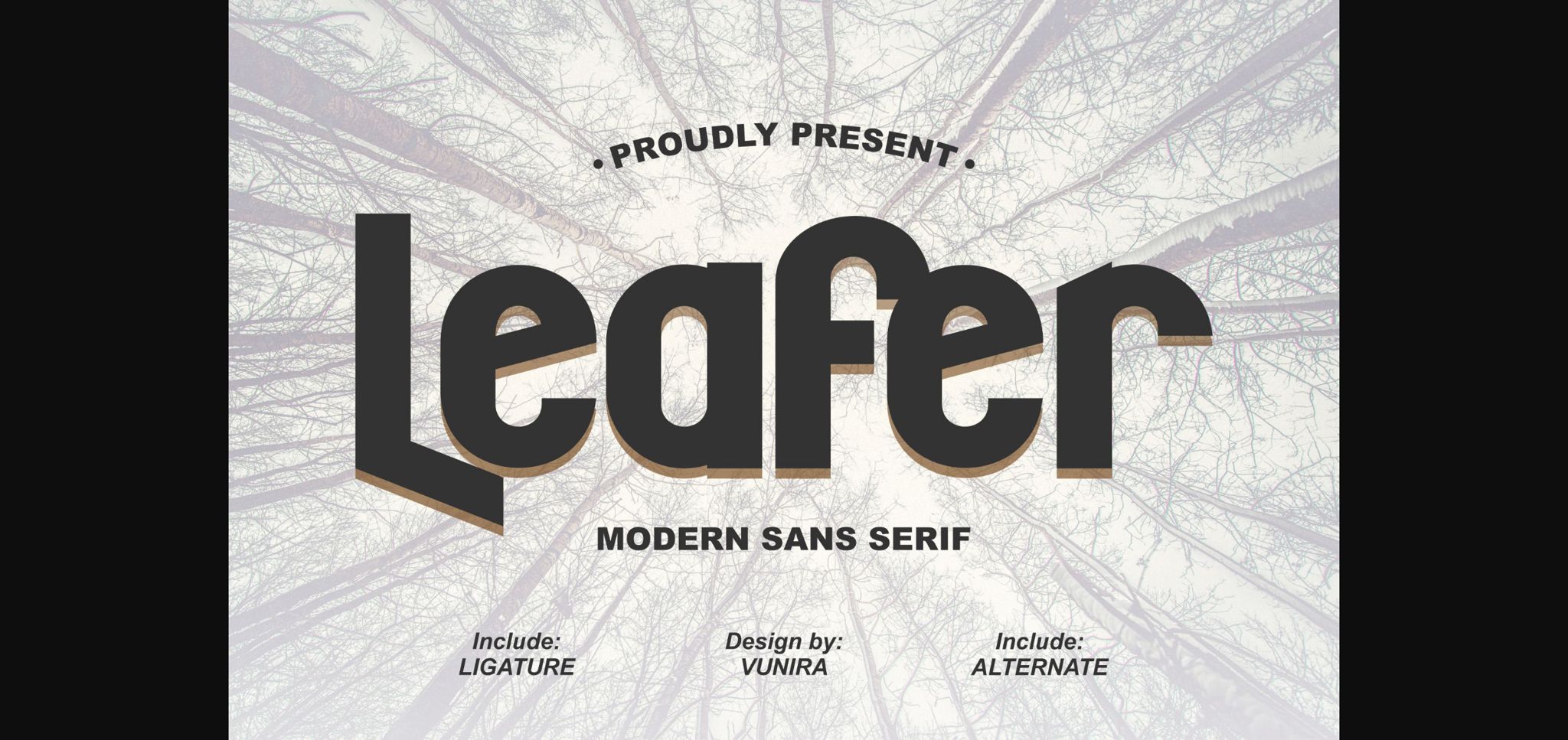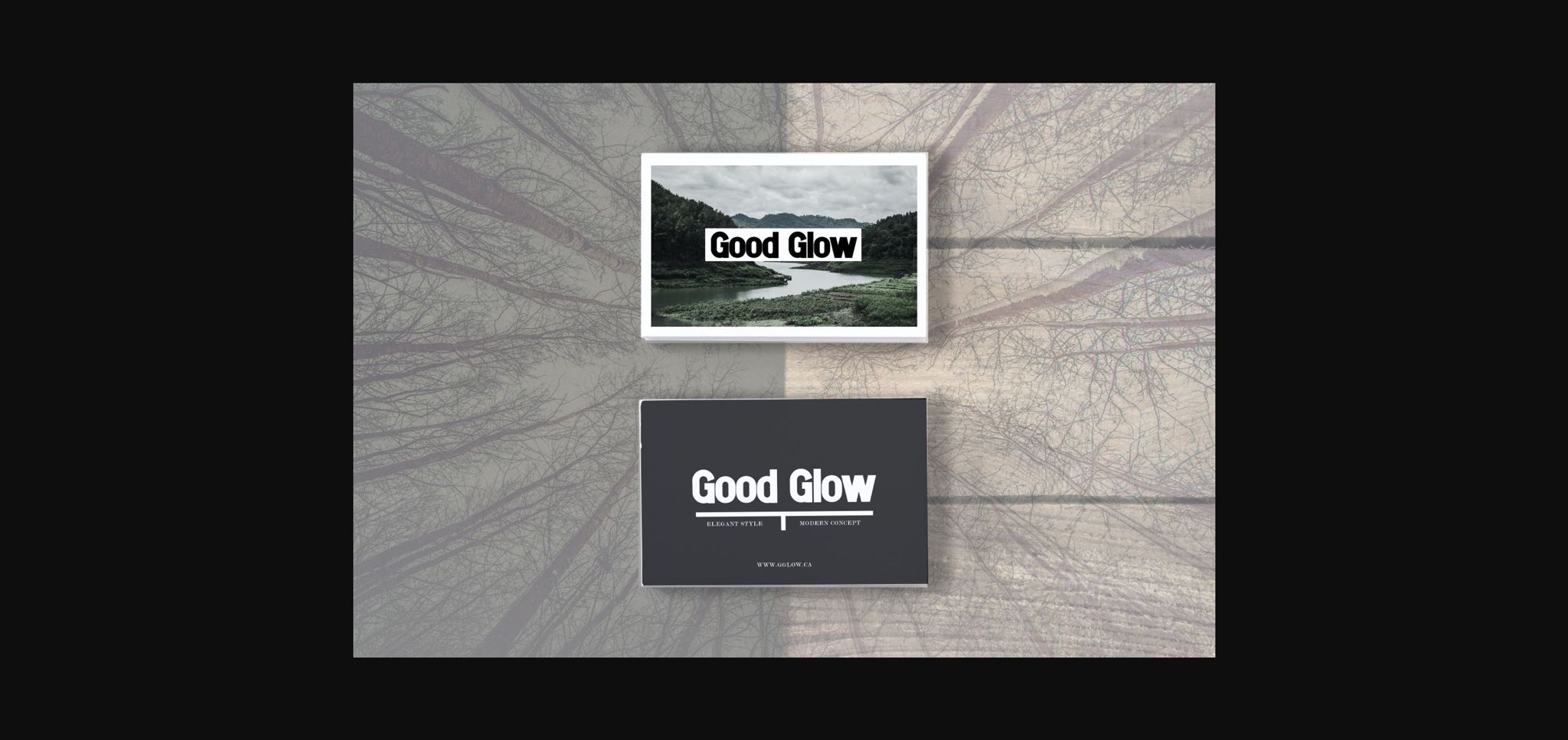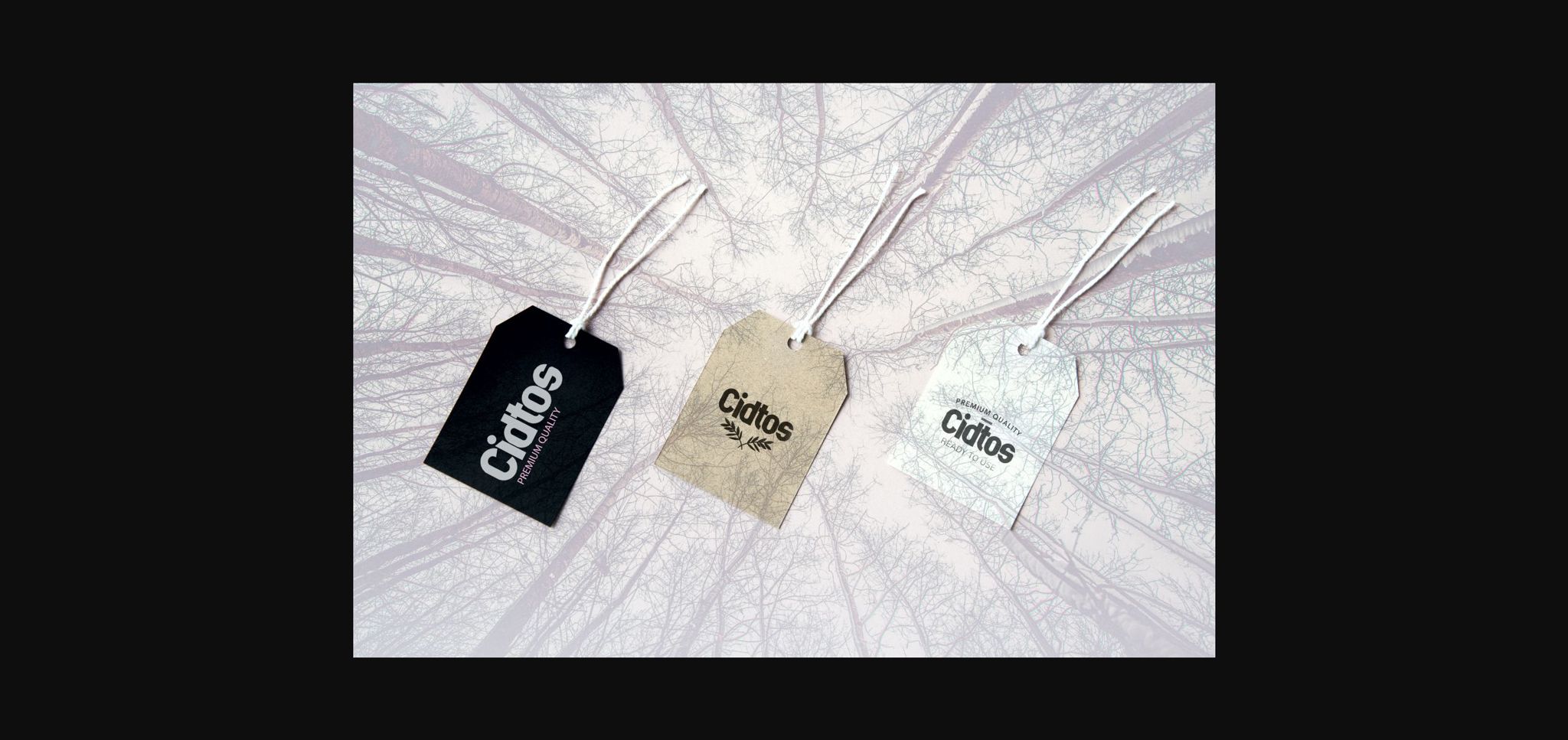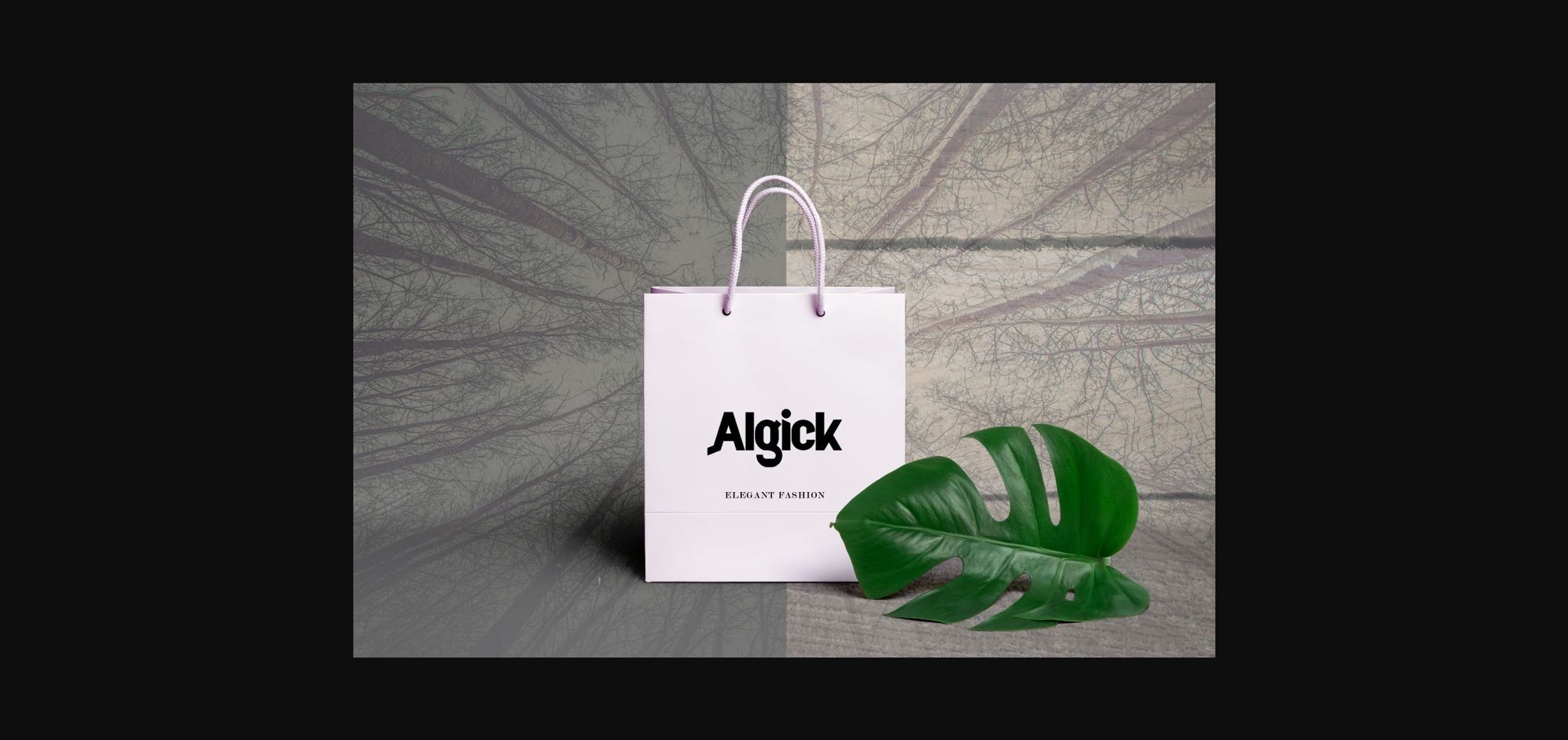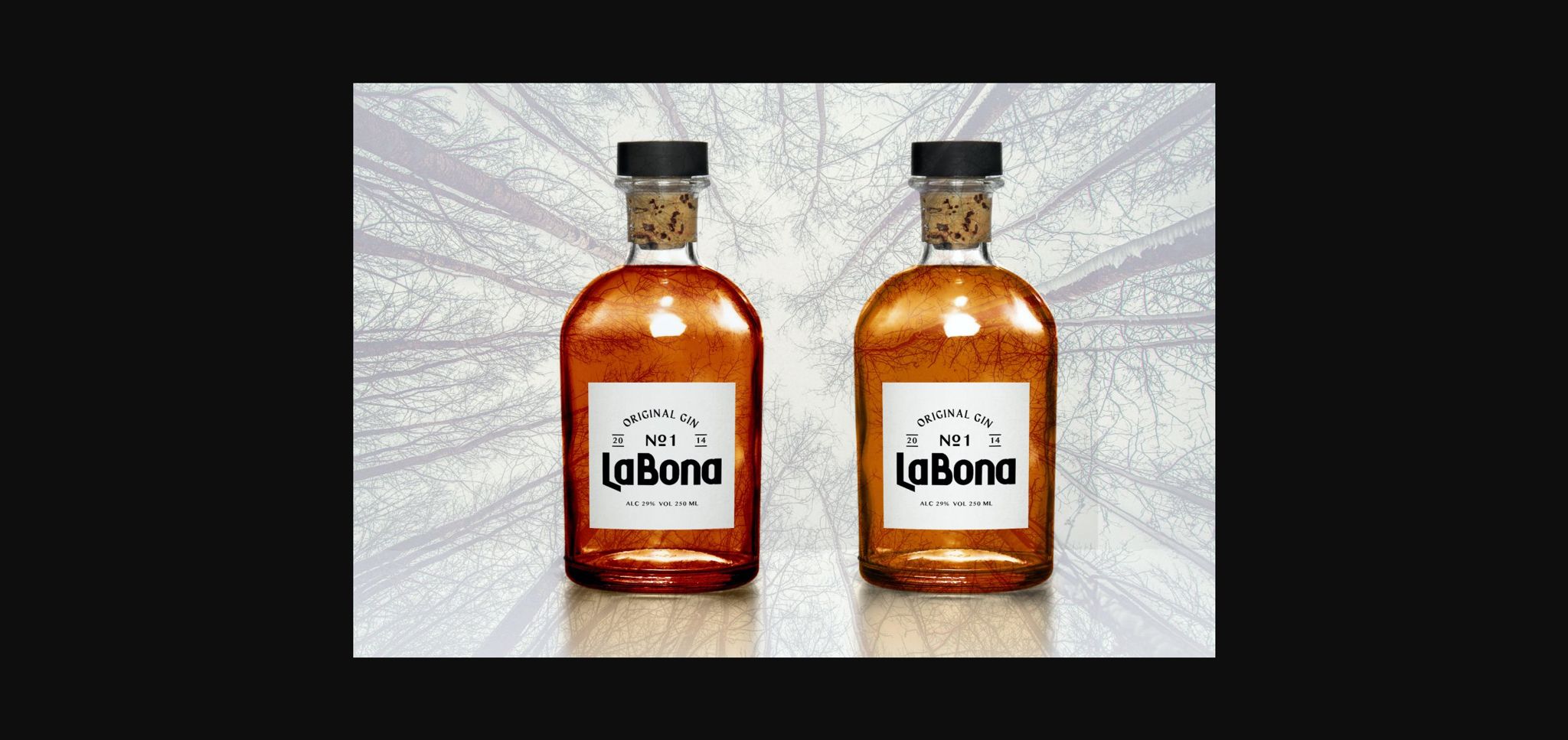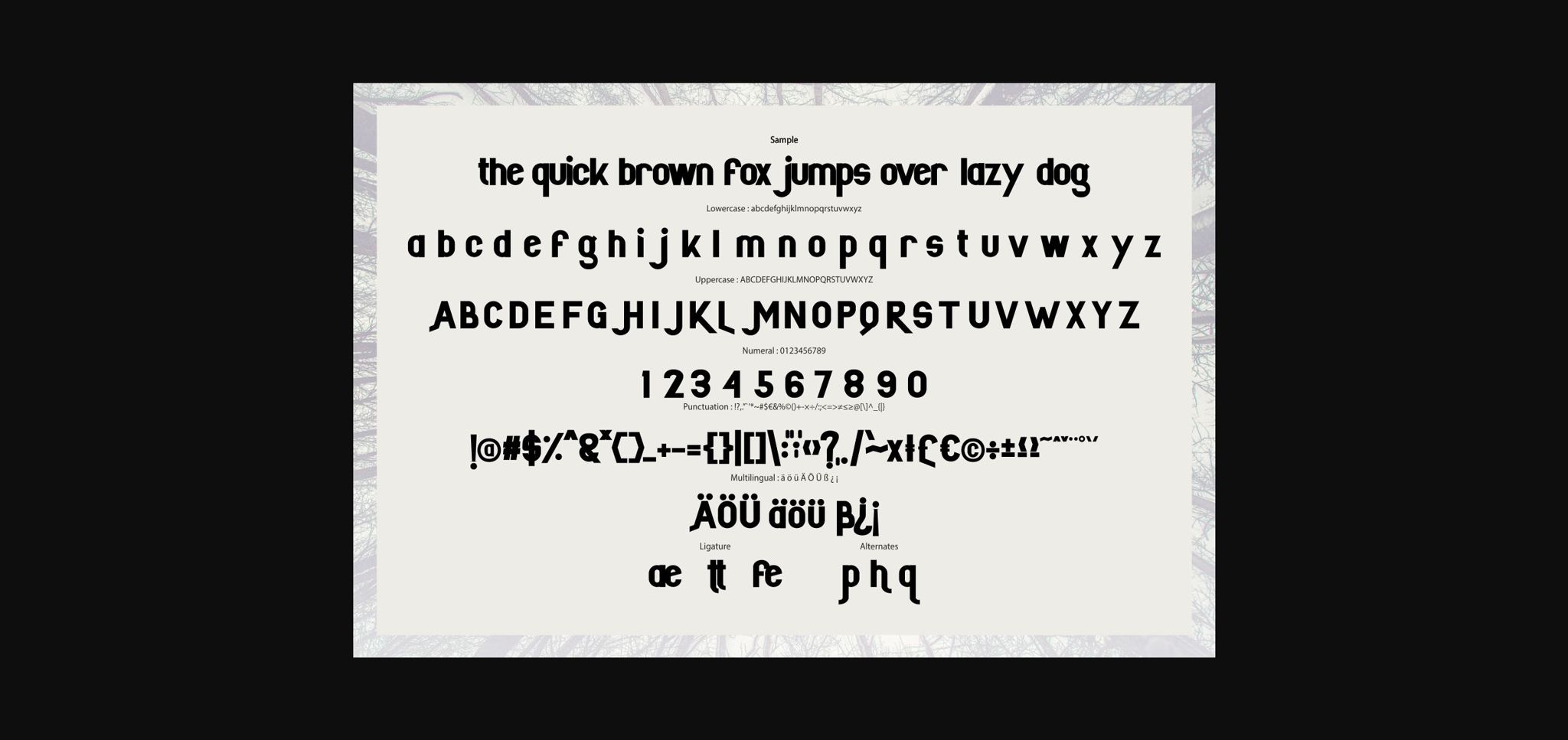
Leafer is a bold and neat sans serif font. It can easily be matched to an incredibly large set of projects, so add it to your creative ideas and notice how it makes them stand out!